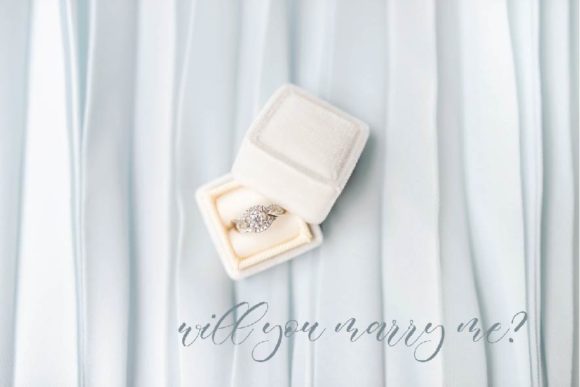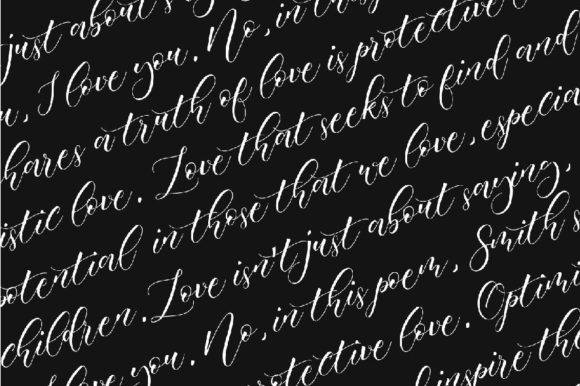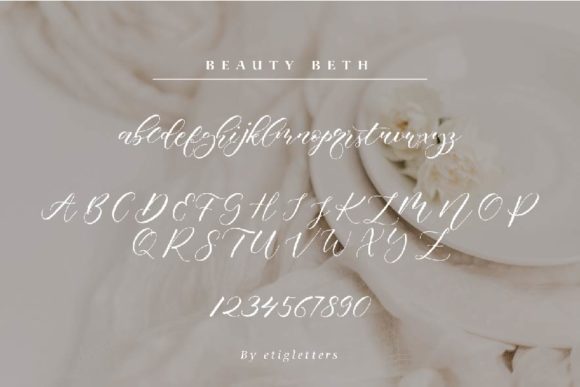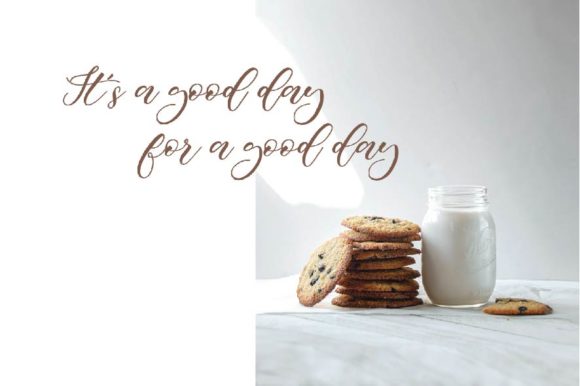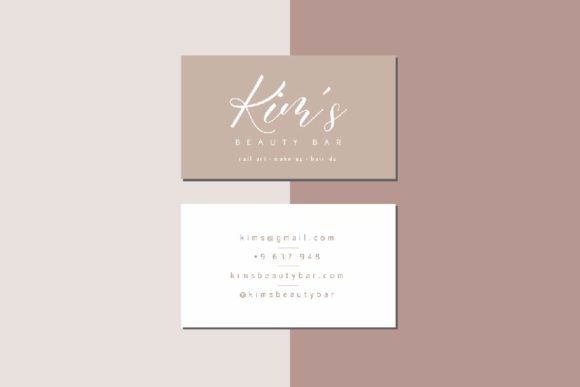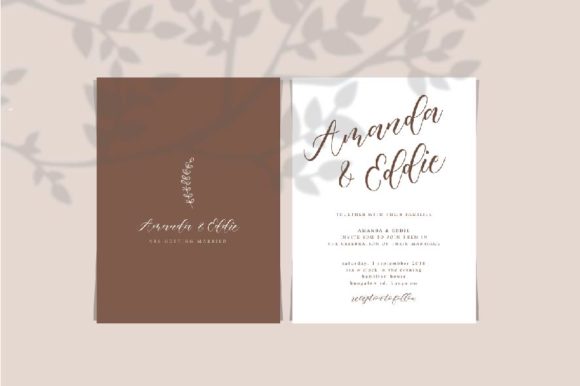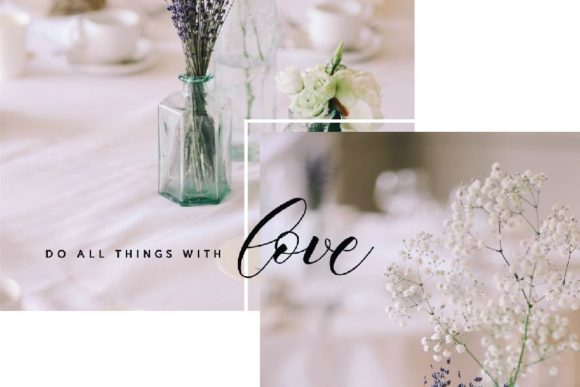
HomeScript FontsBeauty Beth Font Script Fonts Beauty Beth Font FacebookXPinterestWhatsApp Beauty Beth Font Poster 2 Beauty Beth Font Poster 3 Beauty Beth Font Poster 4 Beauty Beth Font Poster 5 Beauty Beth Font Poster 6 Beauty Beth Font Poster 7 Beauty Beth Font Poster 8 About Beauty Beth Font Beauty Beth is an incredibly stylish script font with beautiful swashes. DOWNLOAD ON CREATIVE FABRICAThis font is sold and delivered by Creative Fabrica. Font Canyon may earn a commission if you buy through this link. People also explored Back for You Font Declop Font Hello Komah Font Witch Halloween Font Hello Weekend Font Stovetop Cold Xmas Font Slowada Font White Duck Font 296 0 TagsBeauty Beth Font Previous articleRightside FontNext articleWilliamson Font LEAVE A REPLY Cancel reply Comment: Please enter your comment! Name:* Please enter your name here Email:* You have entered an incorrect email address! Please enter your email address here Website: Save my name, email, and website in this browser for the next time I comment. Personal Use Free Mustica Personal Use Free Read more about this font Tide Personal Use Free Read more about this font Cintya Personal Use Free Read more about this font Hagia Signal Personal Use Free Read more about this font BLOG Fonts That Capture the Spirit of New York City New York City is more than just a place—it’s an experience, a rhythm, a visual language... Best Fonts for YouTube Videos: Make Your Thumbnails Stand Out Top 7 Google Fonts Alternatives for Faster and Privacy-Friendly Web Design (2025) Free vs Paid Fonts: Why Investing in Premium Fonts Is Worth It